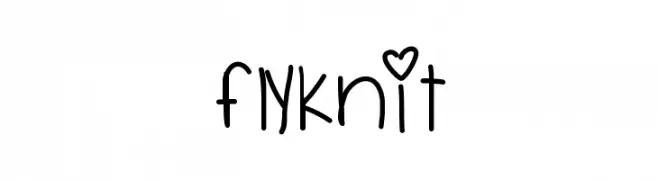
A playful and casual handwritten font with fluid, organic letterforms and heart-shaped embellishments.
A playful, handwritten font with heart-adorned letters and a casual style.